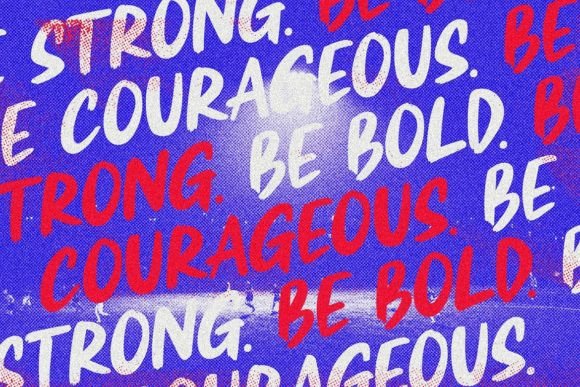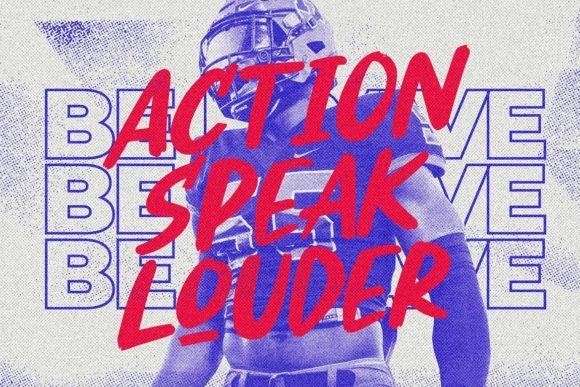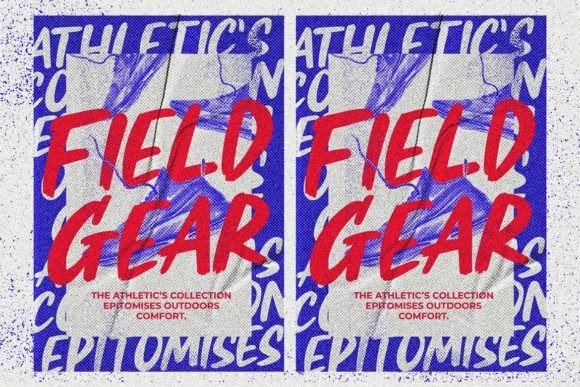
Introduction to Dirty Claws Font
Dirty Claws is an all-caps aggressive dirty brush font.
With a bold, aggressive style, it will add a bold and strong touch to your projects, inspiring you to create something bold as well Besides that, this font is also equipped with Alternative Characters, Standard Ligatures, and multi-language support.